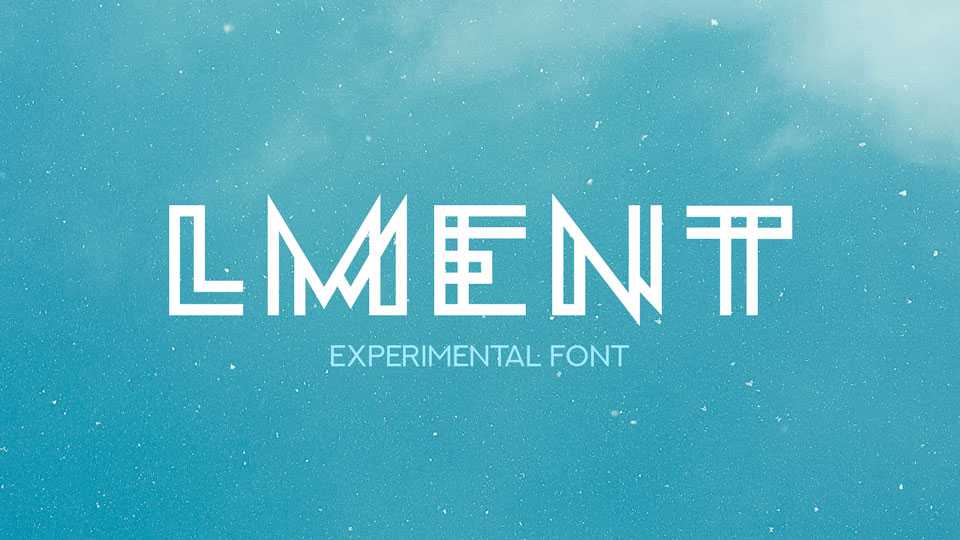
Download Lment font, an experimental geometric display sans with fake inline. It can be used for logos and branding, creative headlines, posters, signage and other graphics.
Designer: Sébastien Hayez